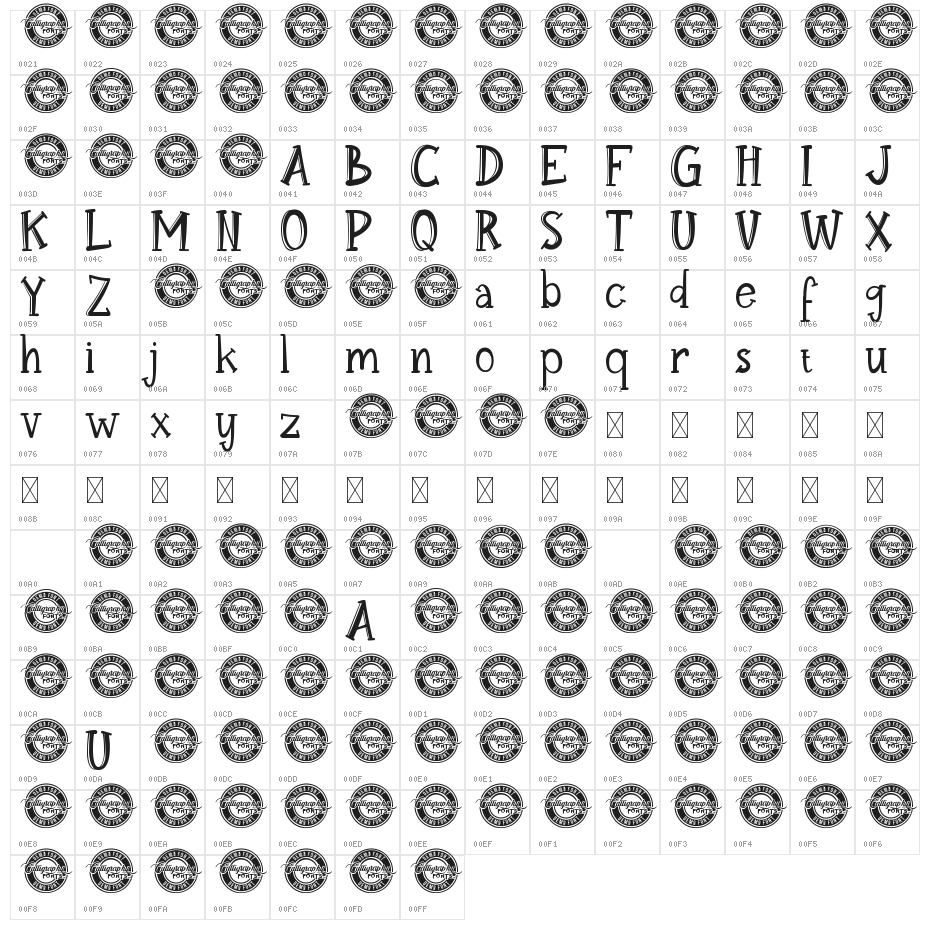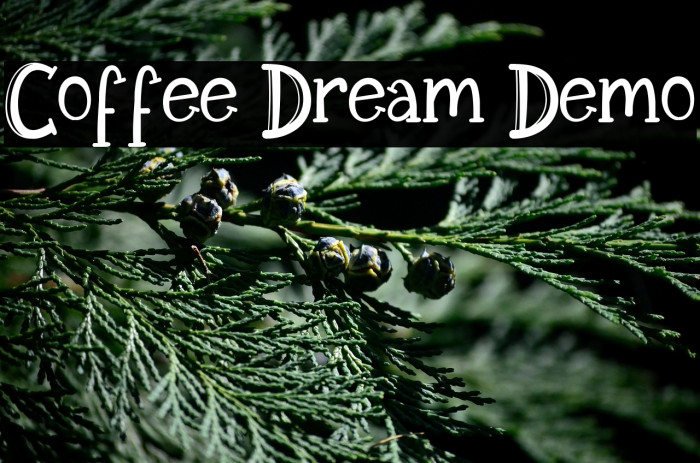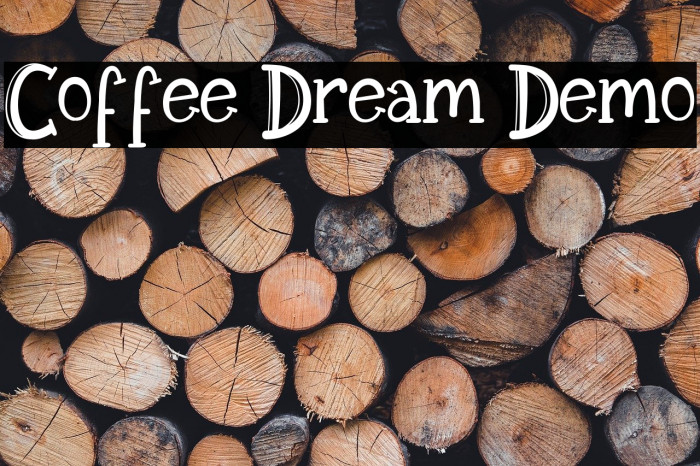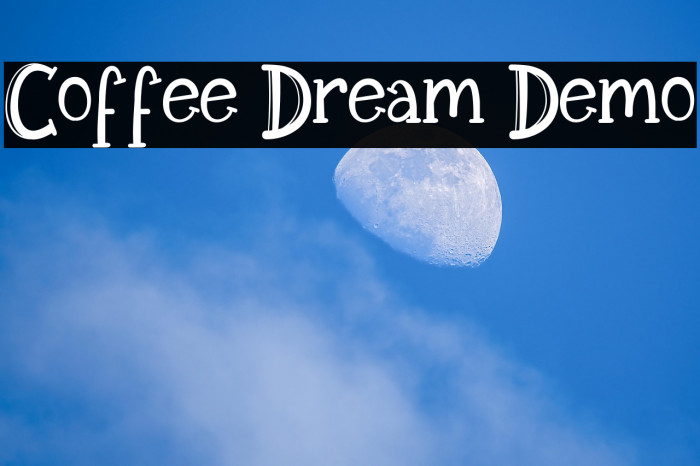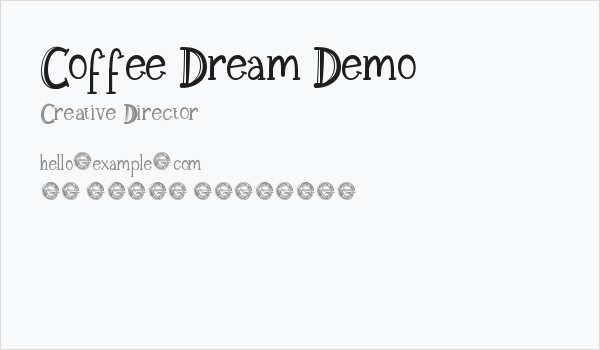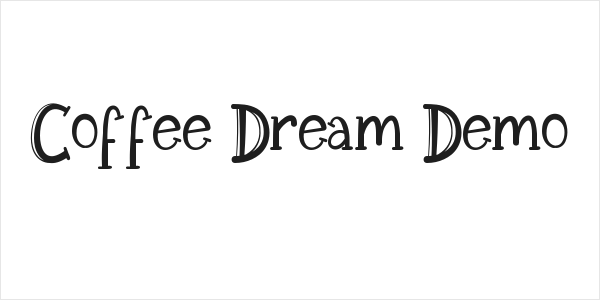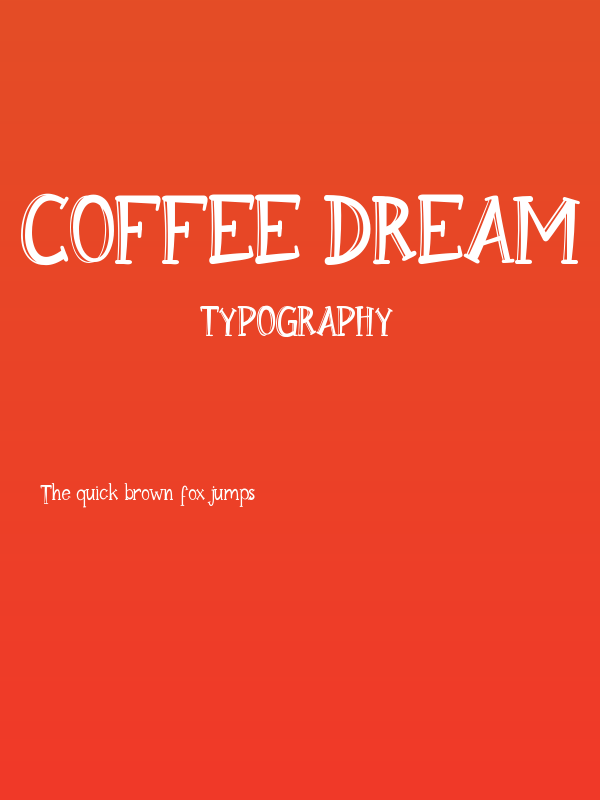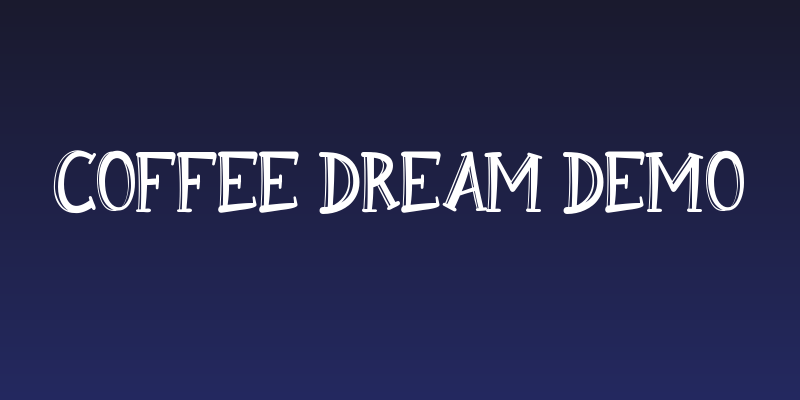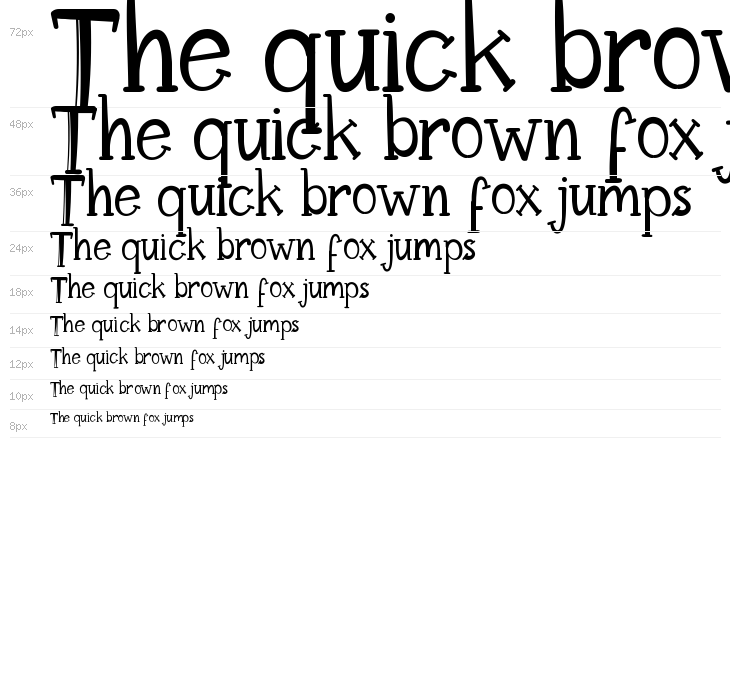
Coffee Dream Demo Font
Coffee Dream Demo Description
This font features a playful and whimsical design, characterized by its hand-drawn appearance. The uppercase letters have a bold, slightly uneven stroke, giving them a lively and dynamic feel. The lowercase letters maintain a similar style, with some characters having unique flourishes that add to the font's charm. The overall design is reminiscent of a casual, handwritten script, making it perfect for projects that require a personal touch. The font includes a full set of uppercase and lowercase letters, numbers, and a selection of special characters. Its distinctive style makes it suitable for creative and informal applications.